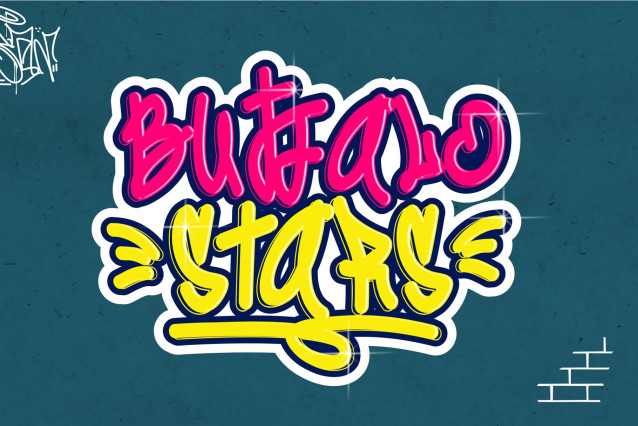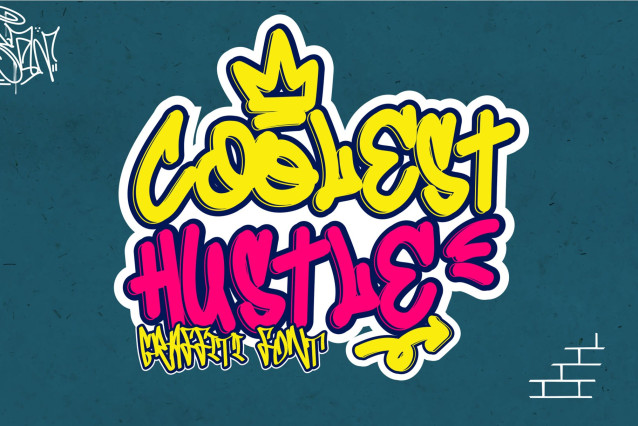
Coolest Hustle Font
Coolest Hustle Font is a decorative natural monoline graffiti typeface that brings a vibrant and dynamic aesthetic to your design projects. It includes three distinct font styles: decorative, solid/clean, and outline, making it incredibly versatile for a range of creative uses. The decorative style has intricate details, perfect for adding flair and personality, while the Solid/clean version offers a polished and sleek finish for a more refined look. The outline style stands out with bold, striking lines that provide contrast and depth.
One of the standout features of Coolest Hustle is its extensive collection of Ligatures and swashes, which allow you to further customize and enhance the flow and uniqueness of your text. These features give your designs a handcrafted, urban vibe, ideal for projects such as street art posters, logo design, branding for fashion labels, music events, and much more.
Whether you’re working on graffiti-inspired artwork, edgy advertising campaigns, or eye-catching social media graphics, Coolest Hustle delivers the perfect balance of modern graffiti style and classic typographic charm, giving your projects that bold, urban edge they need.